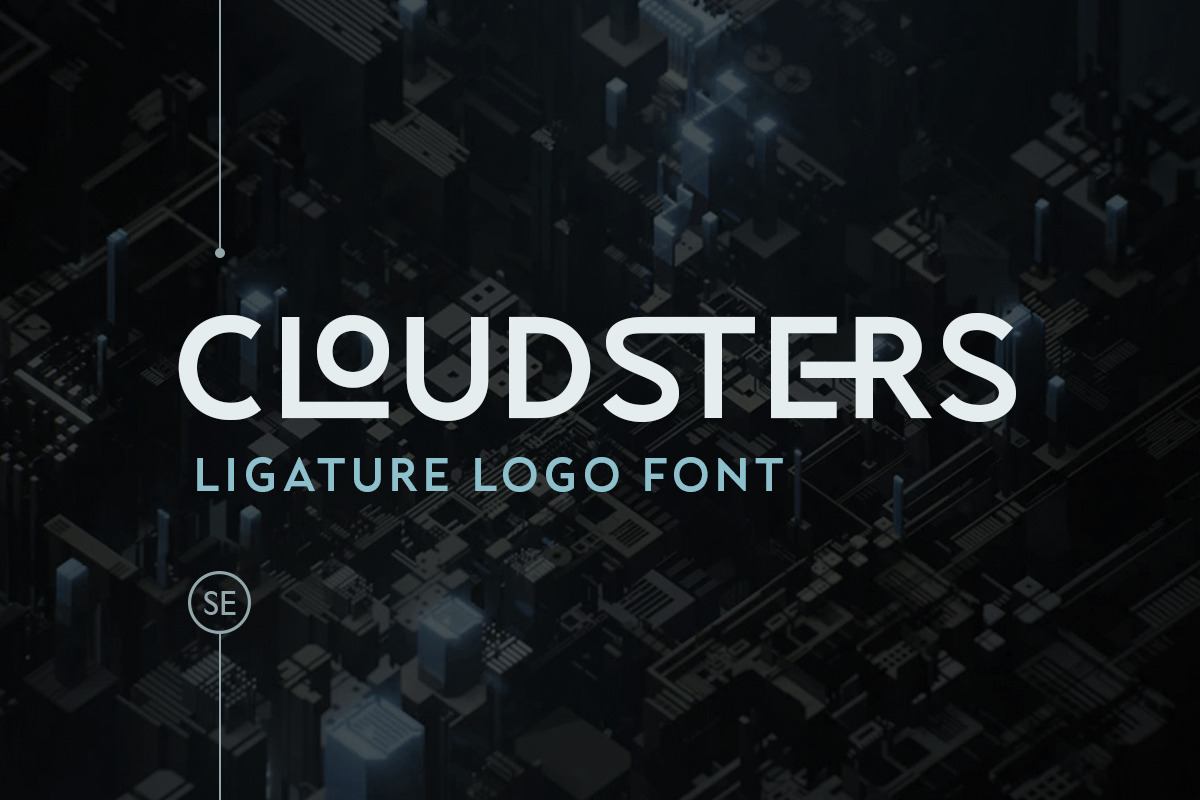
Cloudsters - Ligature Logo Font Free Download is a stylish and modern ligature-based typeface designed specifically for logo design and branding projects. With its smooth, elegant curves and carefully crafted ligatures, this font is perfect for creating high-end, professional logos, business cards, and other brand assets.
Cloudsters - Ligature Logo Font Free Download brings a refined, personalized touch to your typography, making it ideal for businesses looking to stand out with a unique and sophisticated logo design. Its smooth flow and distinctive ligatures give your brand identity a modern, yet timeless feel.